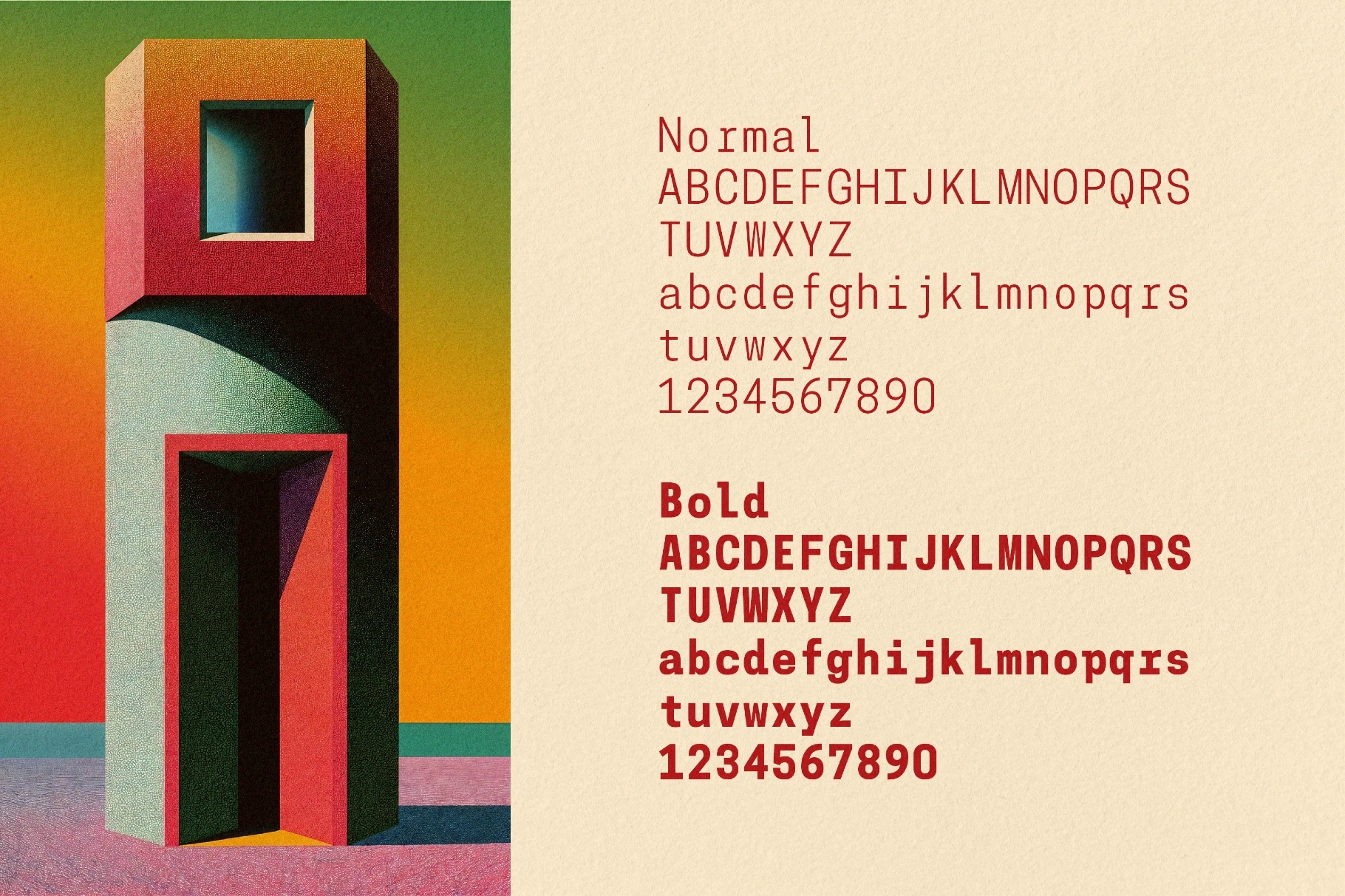
Coupeur Mono Typeface
The monospaced sans with a clear, utilitarian voice. Many details — blocky proportions, clipped terminals, straight-sided curves, tight spacing, clear differentiation between similar shapes, and a consistent stroke weight — keep it legible in dense settings and punchy at display sizes.
Coupeur Mono is ideal for IDE themes and code screenshots, terminal UIs, developer blogs and documentation, dashboard tables with numeric data, event posters, and product packaging. You can also use it for editorial mastheads, dev tools, motion graphics titles, and streaming overlays.
Included: uppercase and lowercase letters, numbers, punctuation and symbols, extra symbols plus multilingual support, international characters, dingbats, and extended support for mathematical symbols and metrics. Two styles are included: Regular and Bold.